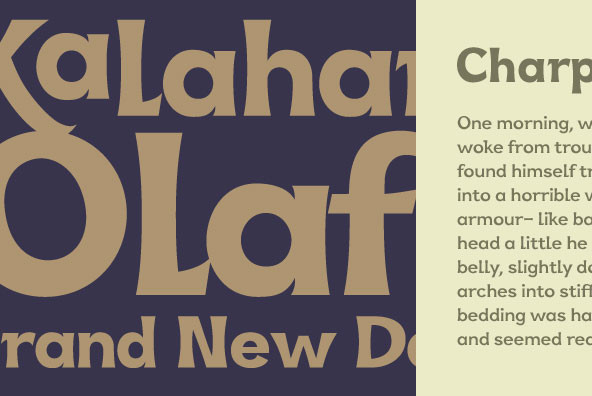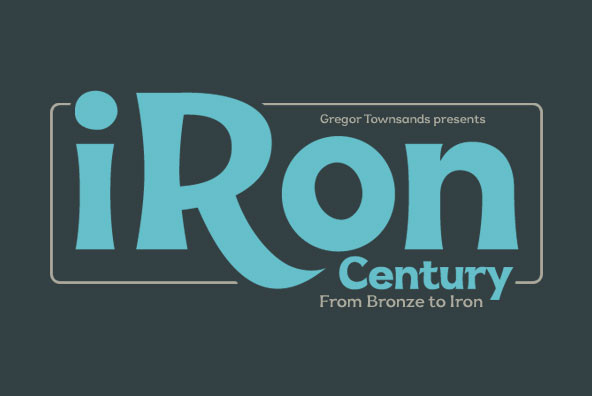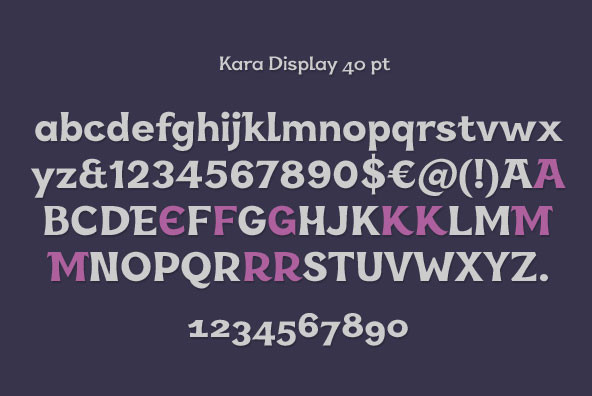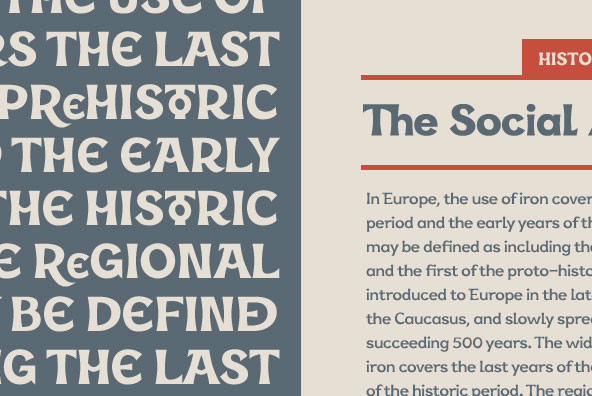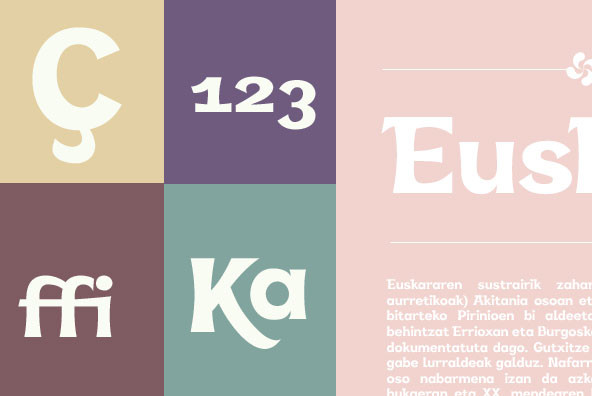
Kara Pro
Foundry: Mostardesign
Designed in 2012 by Olivier Gourvat, this font family is inspired by the euskaran (basque language) font. Redesigned with modernism, this new font respect the traditionnal euskara language with lowercase addition. These nuances give Kara a traditionnal appearance for both texts and headlines but can be used for many more applications such as titles, decoration, posters, cartoons..
Kara Text & Display supports a wide range of languages with more than 500 glyphs and has also more OpenType features like case sensitive forms, contextual alternatives, stylistic alternates, fractions, proportional and tabular figures. With its 2 fonts, Kara is an ideal font family for text, brands creation, signage, print and webdesign creation.